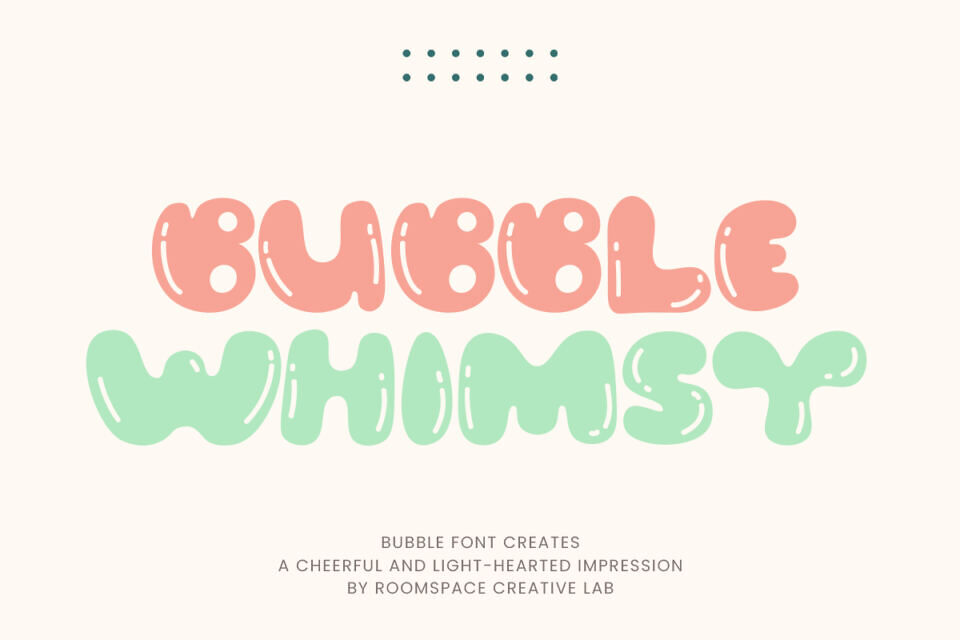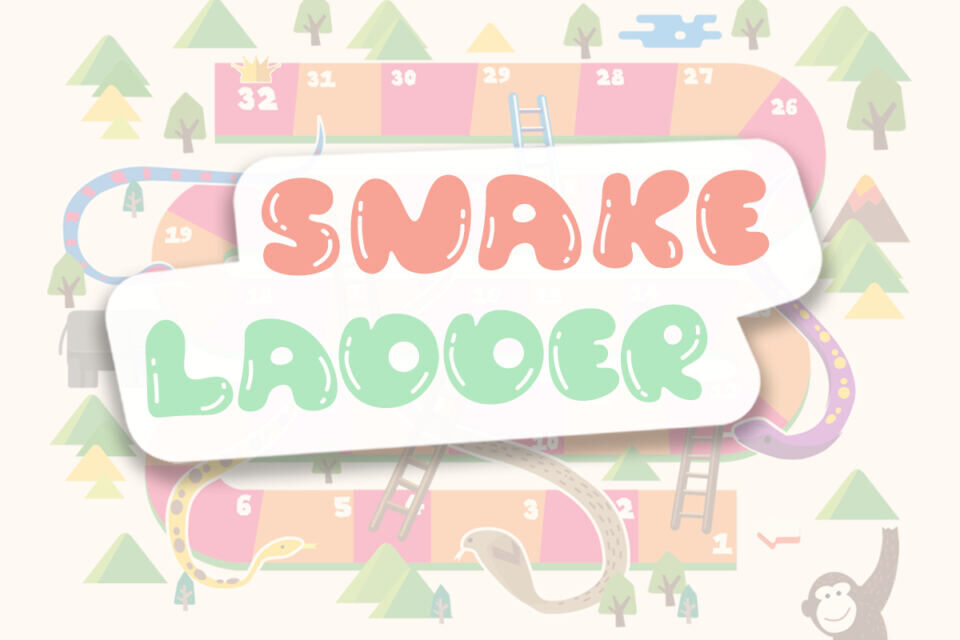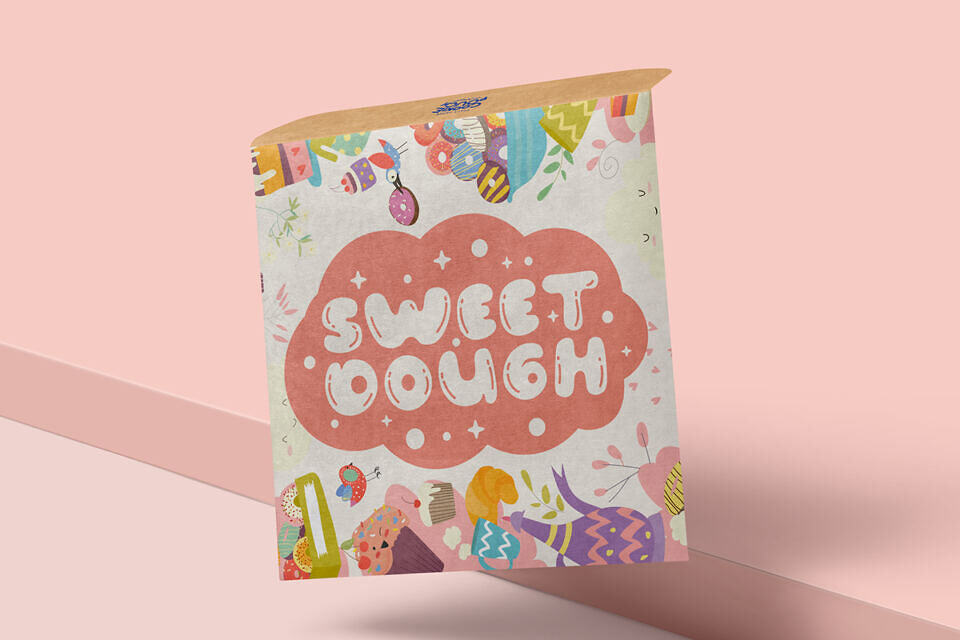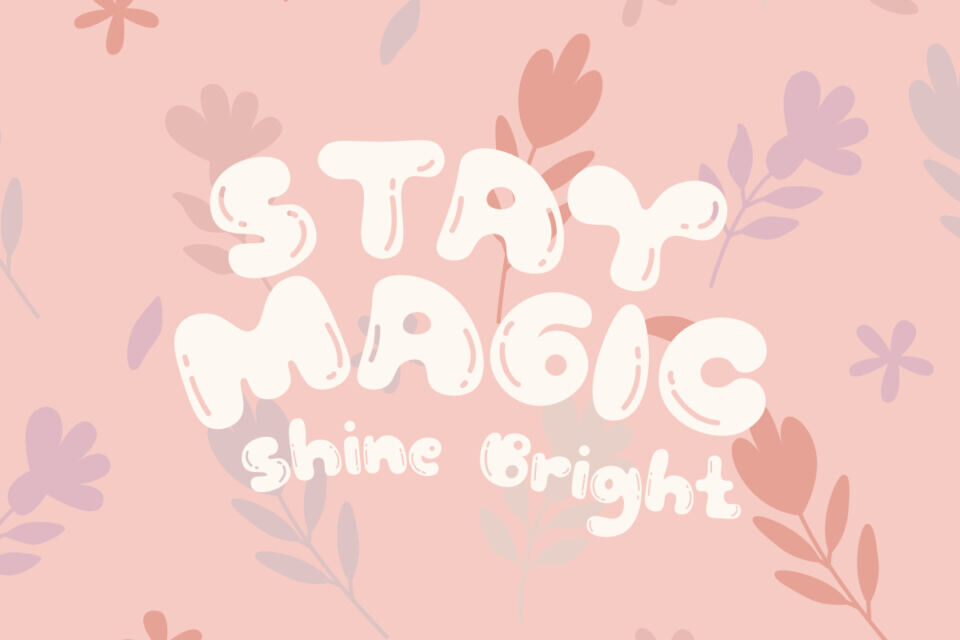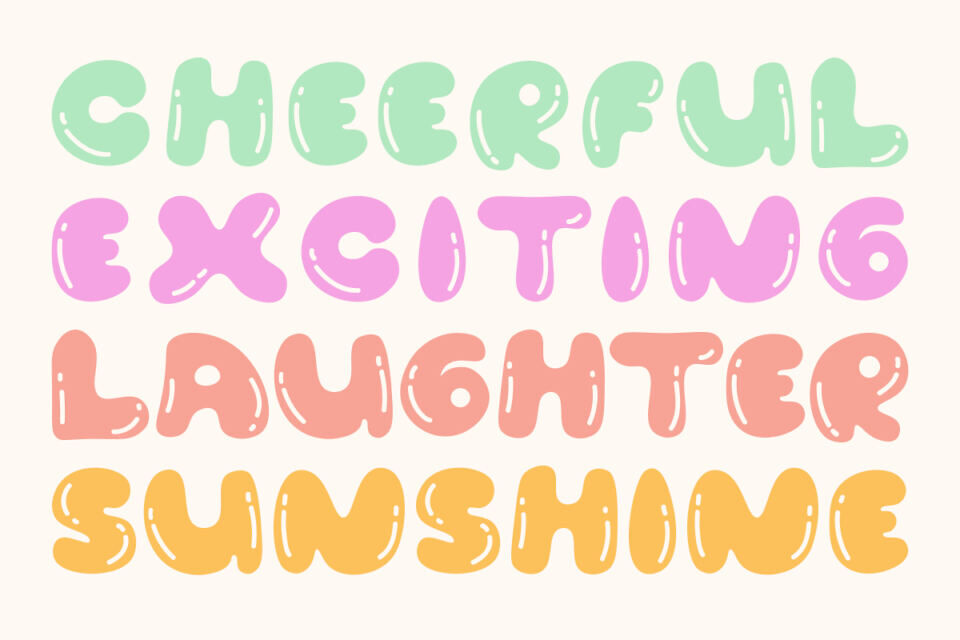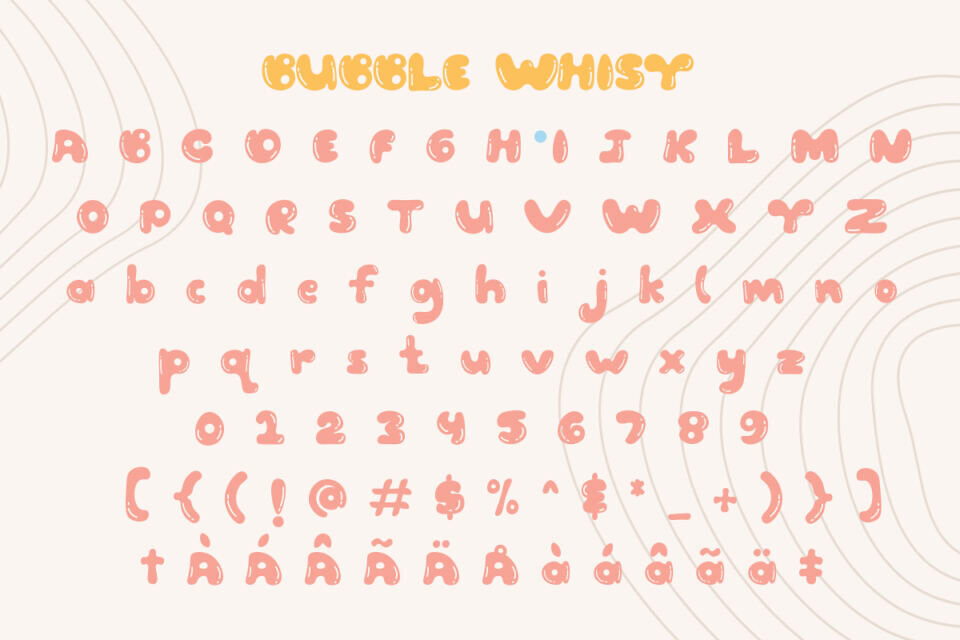
Bubble Whimsy is a delightful bubble font that brings joy and playfulness to every design! Perfect for moms, designers, and creatives looking to add a touch of fun and light-heartedness, this decorative sans-serif font captures a cheerful and whimsical vibe.
Bubble Whimsy is ideal for kids’ projects, birthday invitations, baby shower cards, social media graphics, and crafting projects. Let Bubble Whimsy add a bubbly charm to your designs and make them stand out with its unique personality!